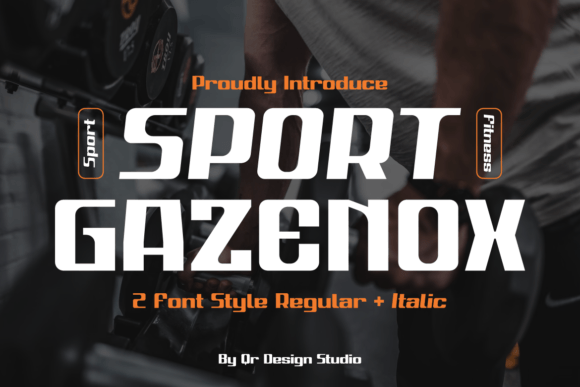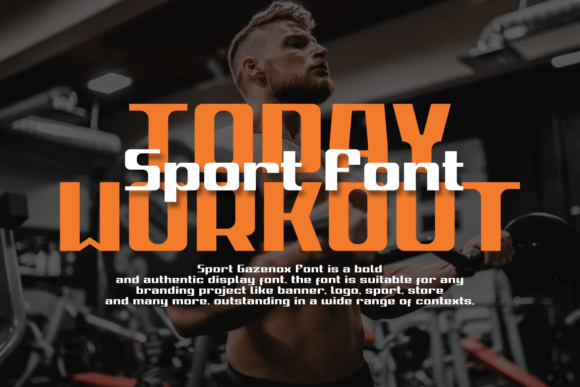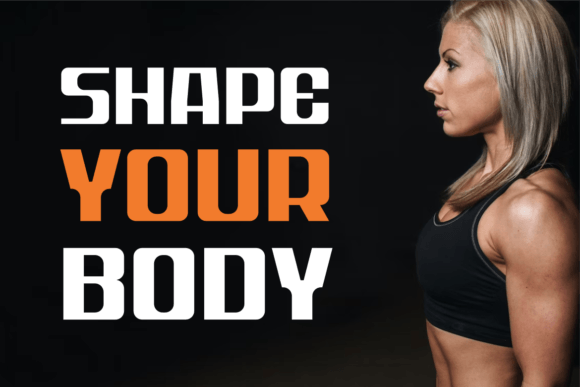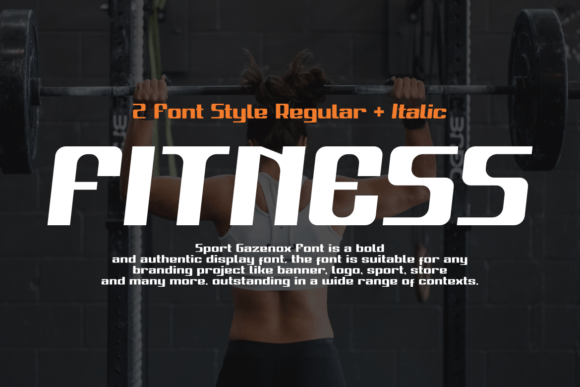
Sport Gazenox Font
About the Sport Gazenox Font
Elevate your designs with Sport Gazenox Font, a font that combines sophistication with readability. Sport Gazenox Font is a bold and authentic display font.
The font is suitable for any branding project like logos, sport, and many more.
Outstanding in a wide range of contexts.